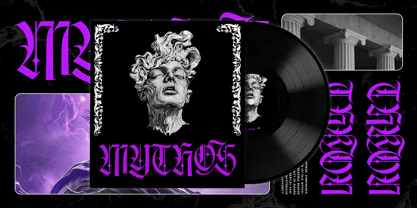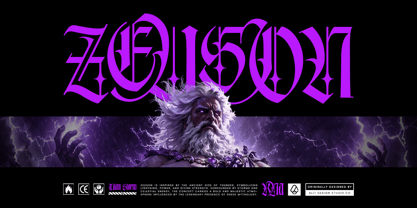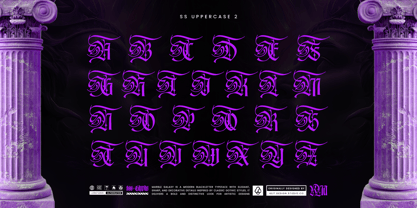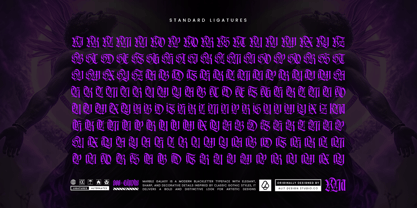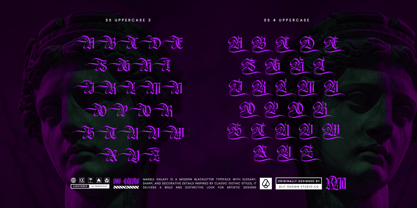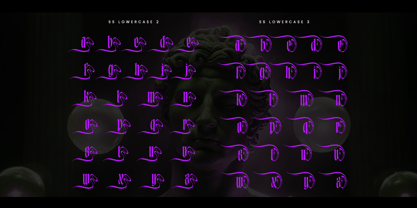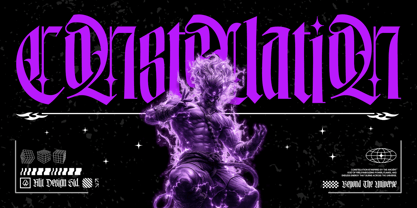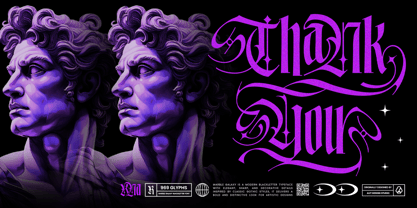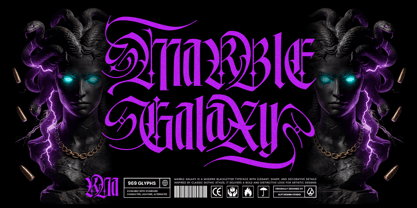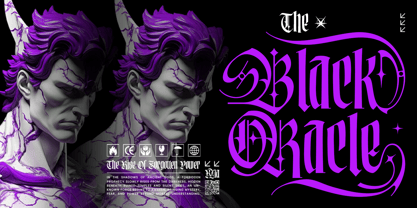
Marble Galaxy
The Marble Galaxy Font Family was designed by Alit Suarnegara and published by Alit Design. Marble Galaxy contains 1 styles. More about this family
Marble Galaxy – Modern Blackletter Typeface
Unleash a dark, powerful, and majestic aesthetic with Marble Galaxy, a modern blackletter typeface designed to bridge the gap between classic Gothic drama and contemporary streetwear culture. Inspired by the timeless elegance of classical Greek mythology and the raw energy of modern design, this font delivers a bold, distinctive, and deeply mysterious visual impact.
With an impressive library of over 900+ glyphs, Marble Galaxy is a true powerhouse for typographic exploration. It is packed with intricate ligatures, dramatic swashes, and highly decorative alternate characters that allow you to seamlessly customize every single word. Whether you want a clean, sharp look or a chaotic, swirling composition of elegant details, this typeface gives you ultimate creative freedom.
Key Features:
• 900+ Glyphs: An extensive character set for maximum versatility.
• Tons of Standard & Unique Ligatures: Perfect for creating seamless, custom-looking logotypes.
• Stylistic Sets (SS01 - SS04): Includes distinct uppercase and lowercase variations featuring dramatic cosmic swirls, sharp star-like counters, and aggressive gothic flares.
• Full Character Set: Complete Uppercase, Lowercase, Numbers, and Comprehensive Punctuation.
Perfect For:
Marble Galaxy is engineered for designs that need to stand out with authority and attitude. It is the ultimate choice for:
• Streetwear & Apparel Branding (T-shirts, hoodies, and merchandise)
• Logotypes & Edgy Branding Identity
• Music Album Covers (Metal, Hip-hop, Electronic, Phonk)
• Poster Design & Event Key Visuals
• Tattoo Art & Creative Editorial Layouts
• Packaging Design with a dark, premium, or rebellious vibe